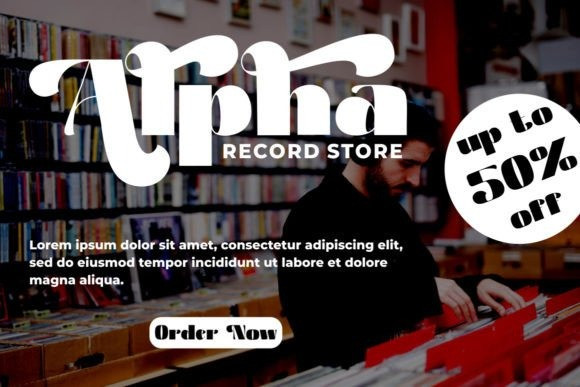
Charm Man Font
Charm Man Display Font is a cool and bold retro-style display font. No matter the topic, this font will be an incredible asset to your fonts’ library, as it has the potential to elevate any creation. This font is PUA encoded which means you can access all the glyphs and ligatures with ease!